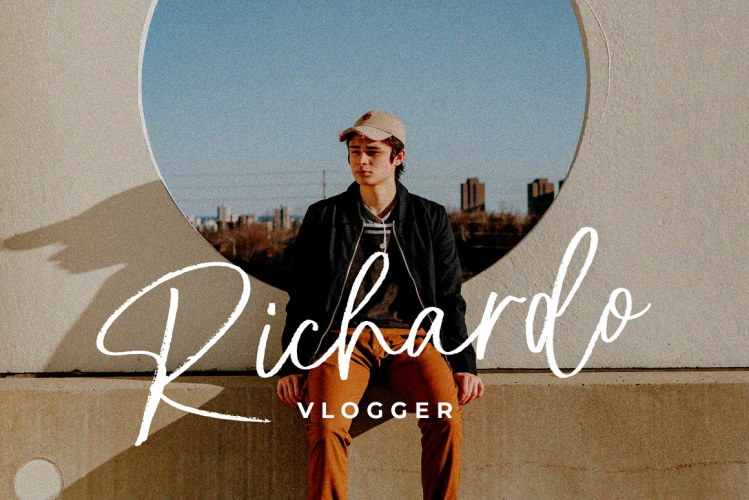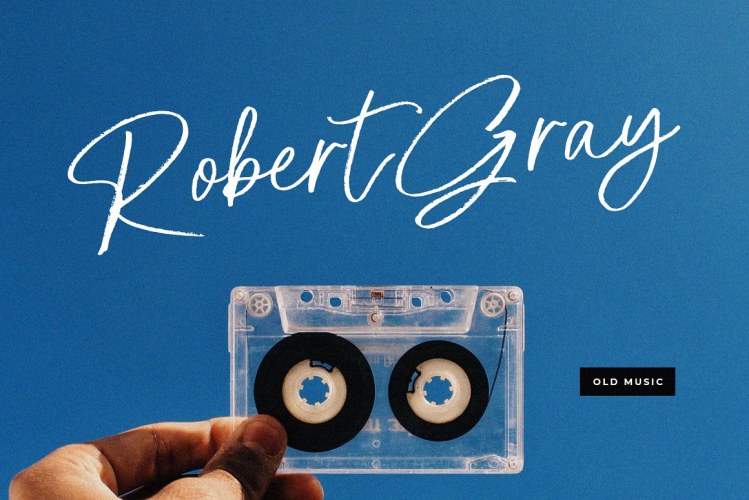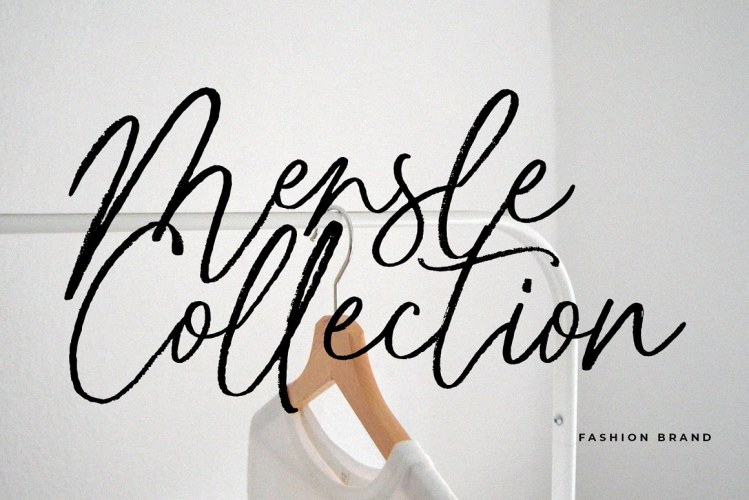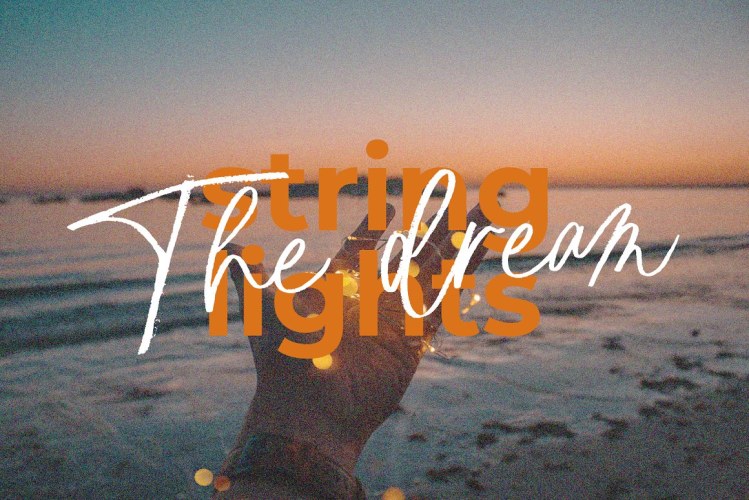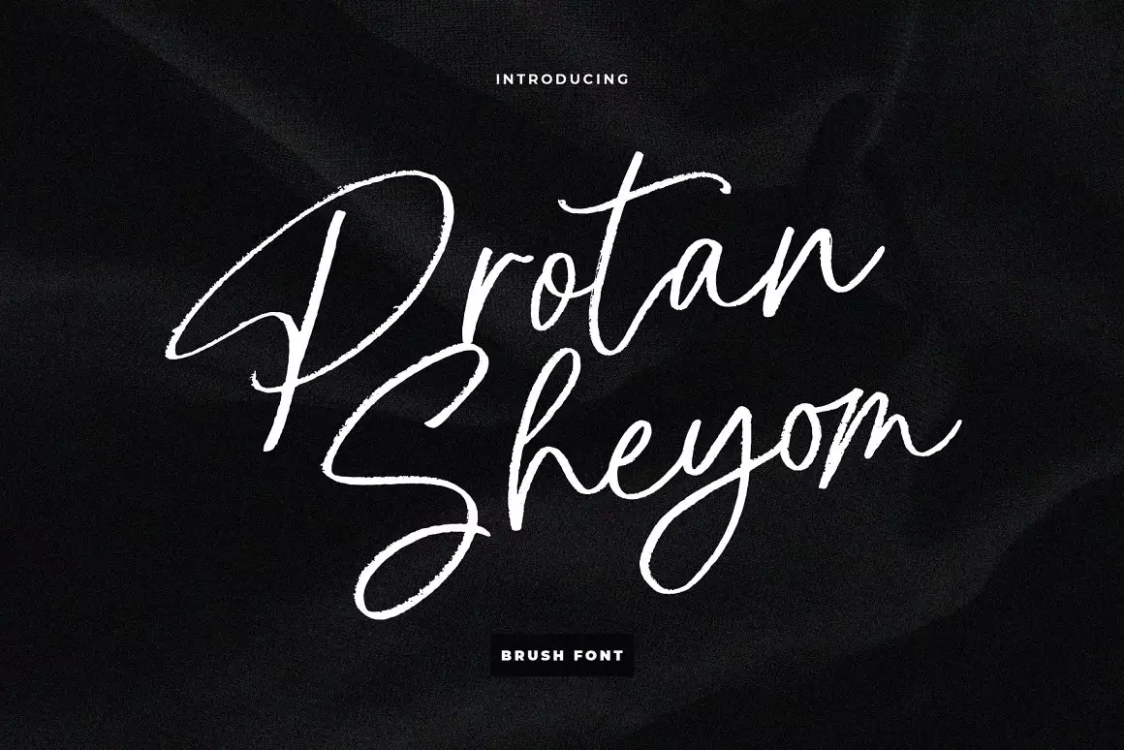
Protan Sheyom Brush Font
Protan Sheyom is a font that was scratched with a brush pen, to get a natural texture, this font will show the characteristics of the hand. This font is perfect for various places such as clothing, posters, title books, stationery designs, quotes, branding, logos, invitations, greeting cards, t-shirts, packaging designs and more.
Where Protan Sheyom Brush Font works best
Protan Sheyom Brush Font brings a personal, handwritten warmth to invitations, menus and place cards.
Craft brands — coffee, cosmetics, bakery — use scripts like Protan Sheyom Brush Font for signature-style logos and labels.
Pair Protan Sheyom Brush Font with a plain sans for quotes, stories and Pinterest pins that feel handmade.
Protan Sheyom Brush Font is a Script And Handwritten typeface tagged Branding, Brush, Packaging, Poster. It works well for headlines, logos, posters, social media graphics and branding projects that need a distinctive script and handwritten look.